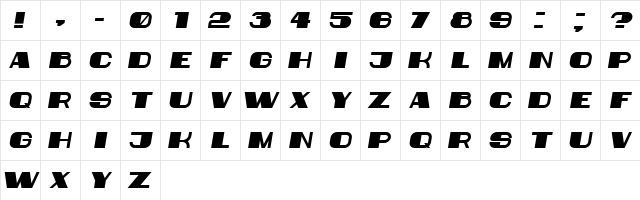
Bigger Book Italic
Design Context for Bigger Book Typeface
Bigger Book takes a measured approach to typography — its balanced proportions and neutral character make it a reliable workhorse for both digital and print work. Its italic angle brings a sense of urgency and motion to the letterforms.
Pro Tip: Try Bigger Book for annotation and caption copy alongside an upright companion — the contrast in angle creates a dynamic but ordered typographic system.